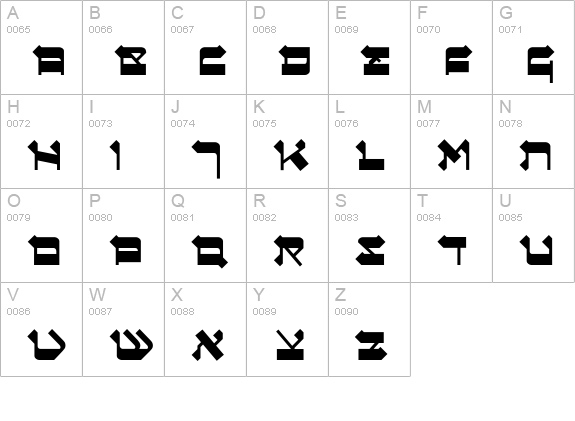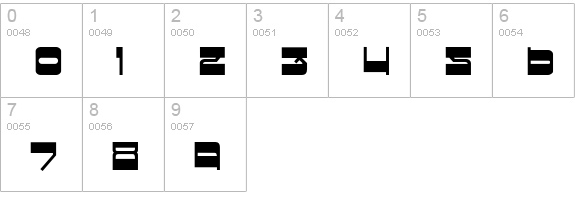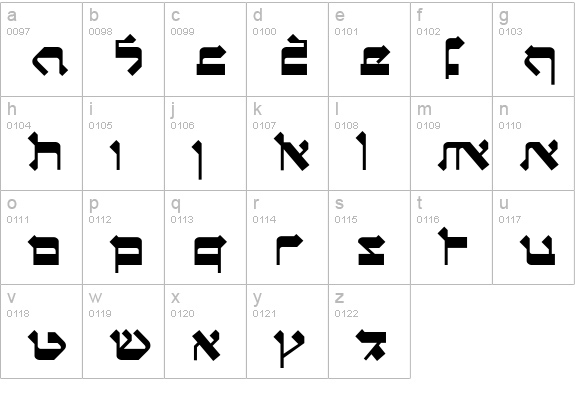
Circumcision-Bold Font Details
Circumcision-Bold is a strong, high-contrast variant in the Circumcision typeface family \xE2\x80\x94 well suited to headlines, attention-grabbing titles, and strong calls-to-action.
Circumcision-Bold font is a striking and modern typeface designed to make a bold statement in any design project. With its clean lines and strong presence, this font is perfect for headlines, logos, posters, and more. The bold weight of Circumcision-Bold exudes confidence and strength, making it a powerful choice for any visual communication. And the best part? Circumcision-Bold is completely free to download at FontsMarket.com! This means you can easily add this impactful font to your collection without any cost. Don't miss out on the opportunity to enhance your designs with the bold style of Circumcision-Bold. Download it now and start creating eye-catching visuals that demand attention.